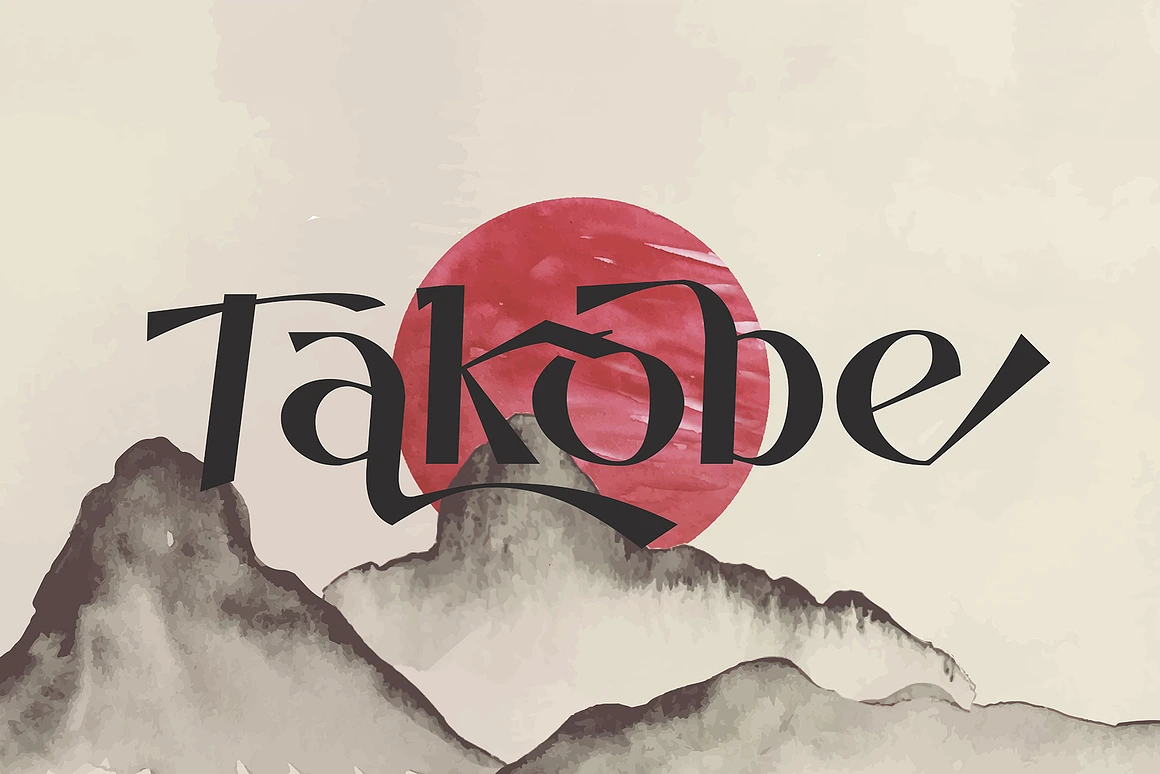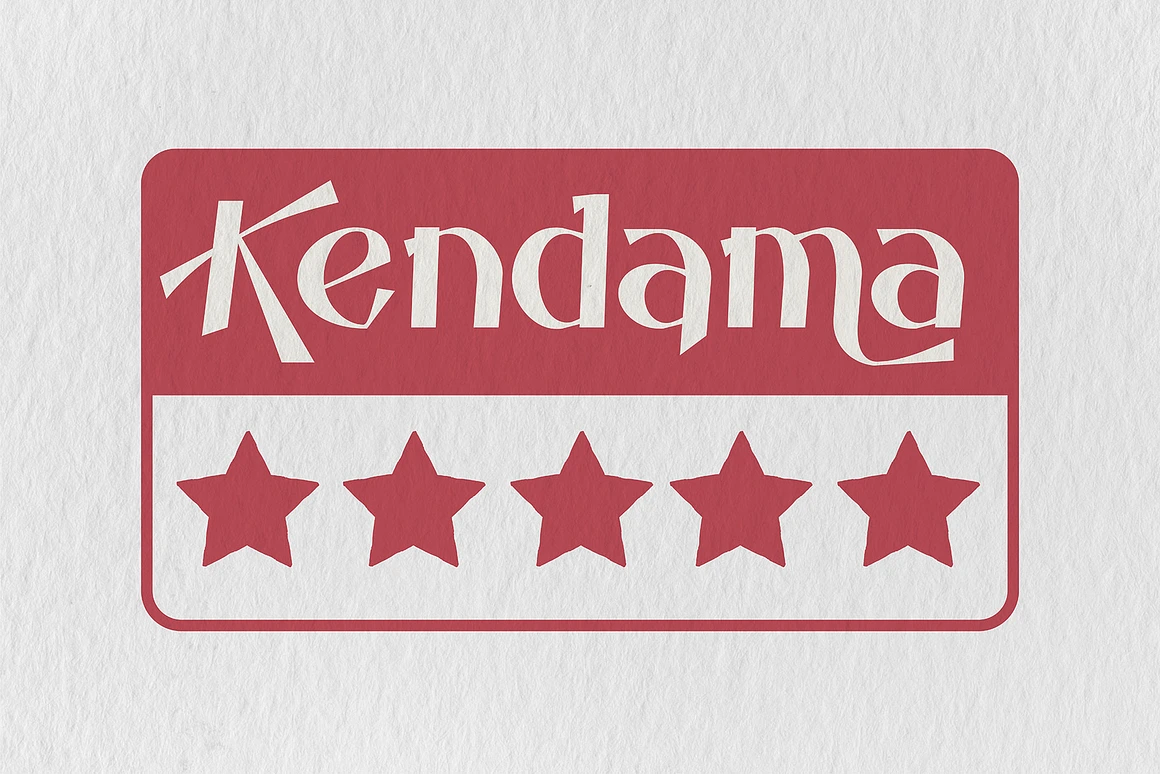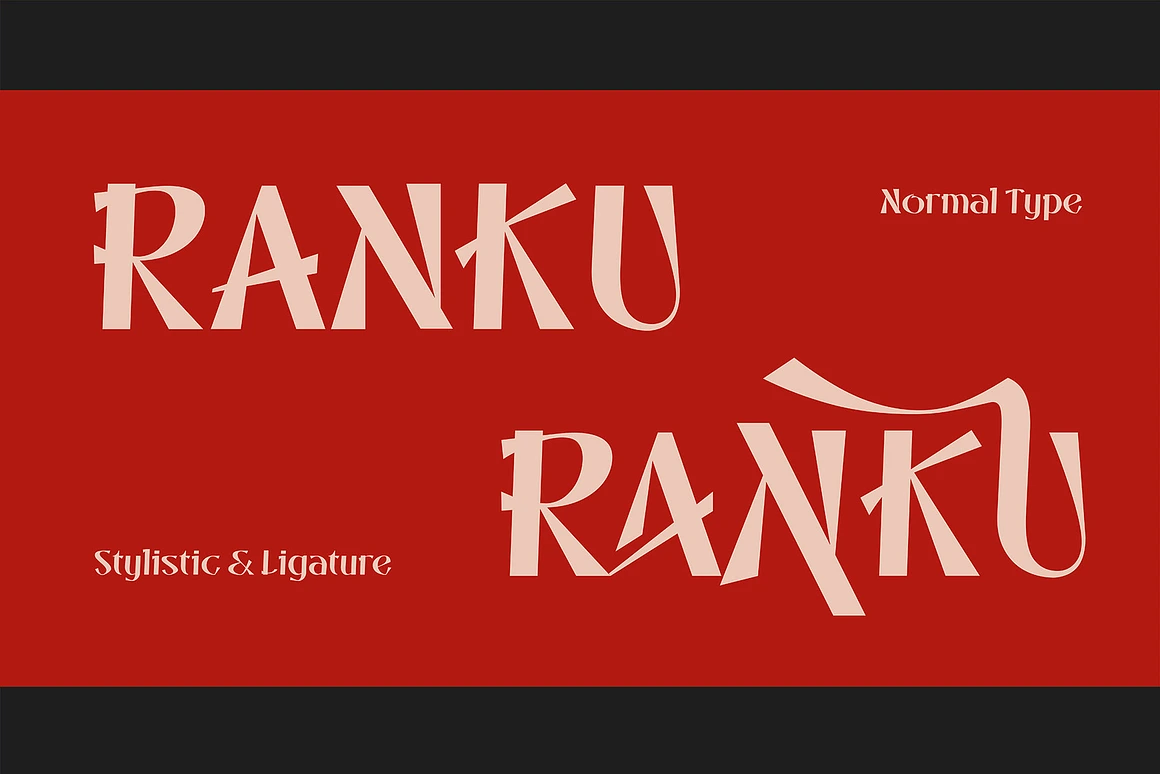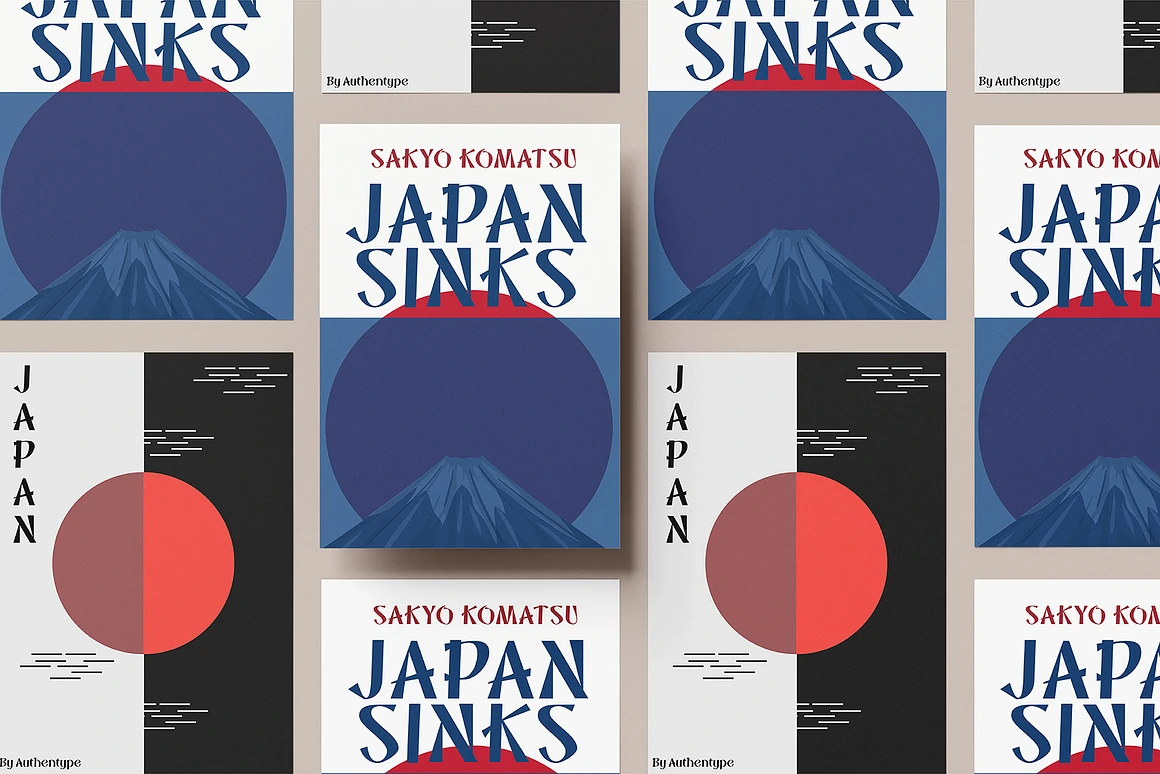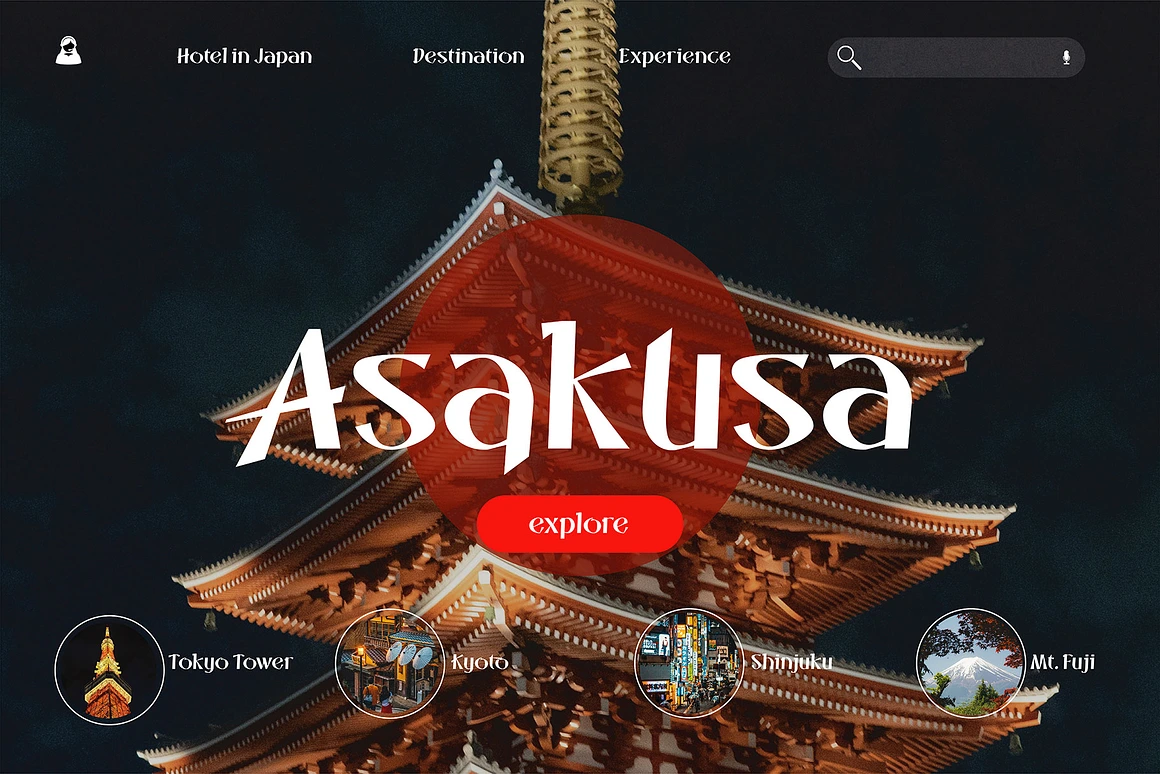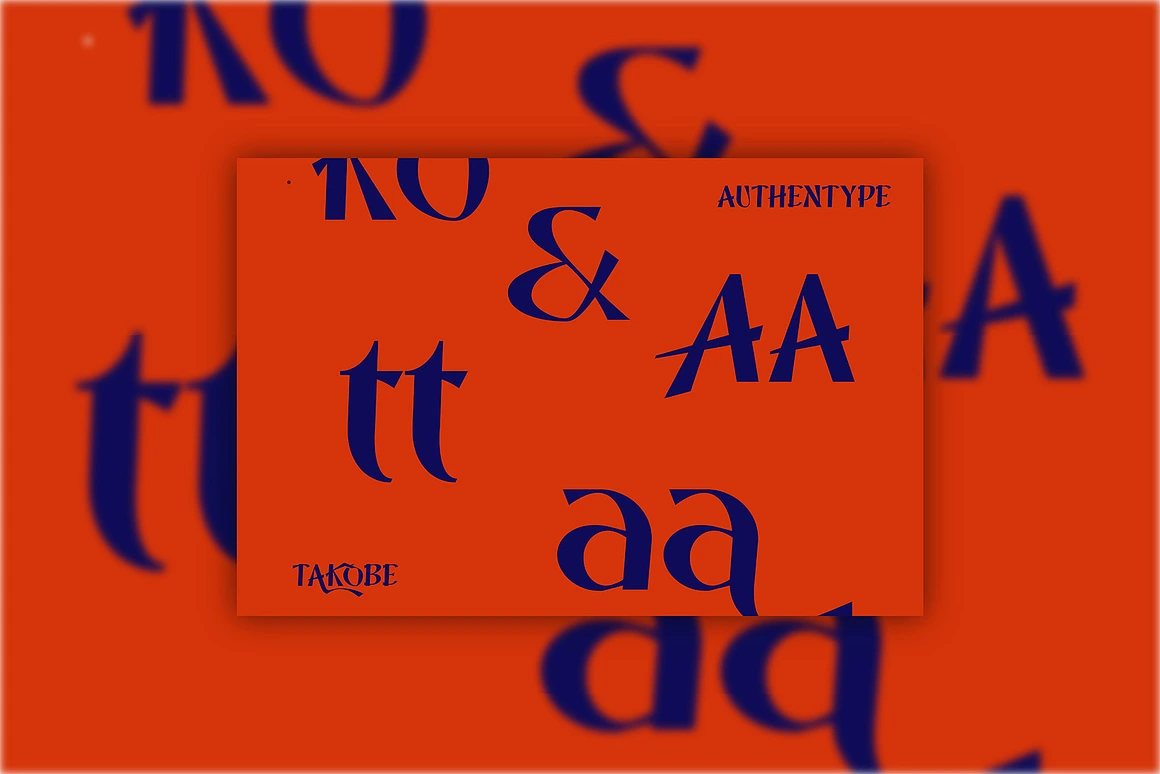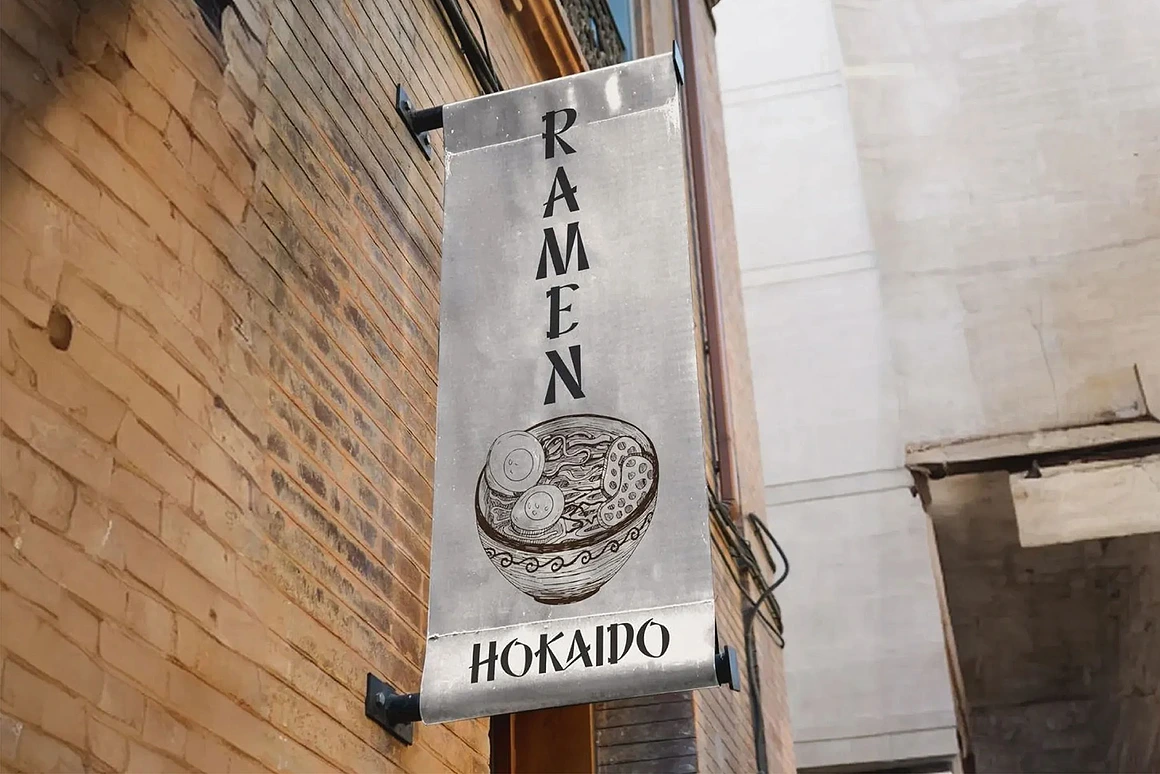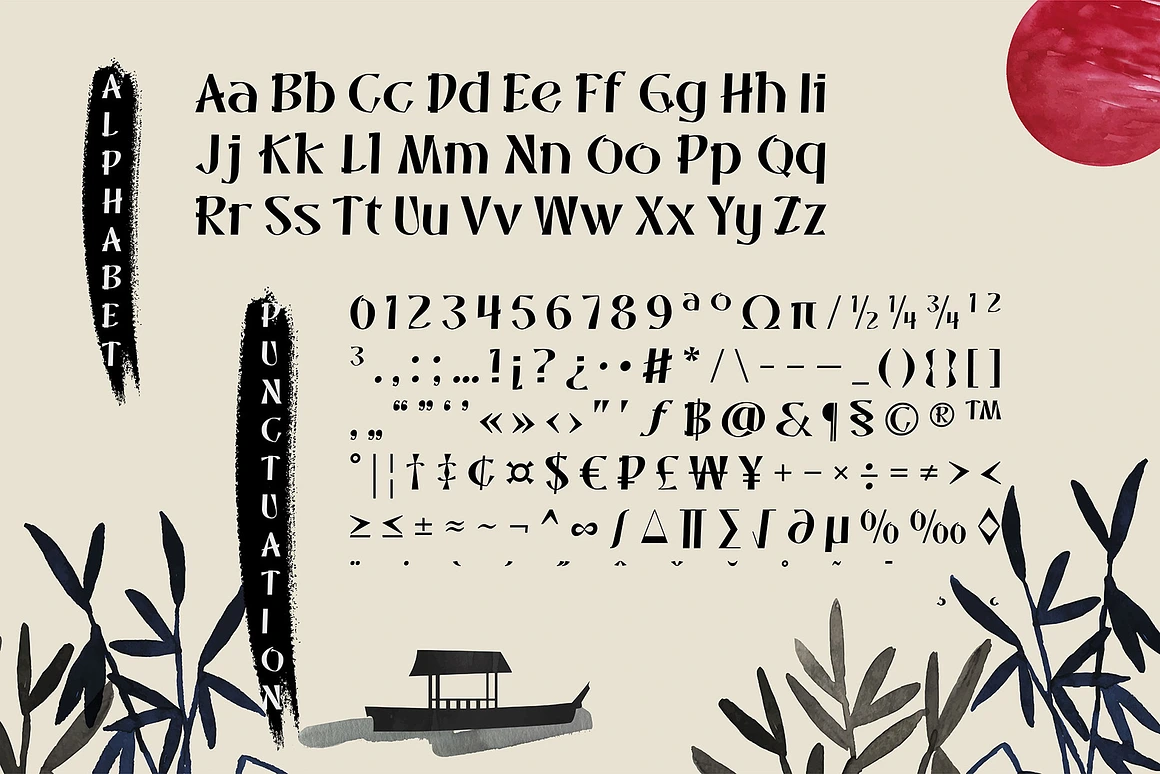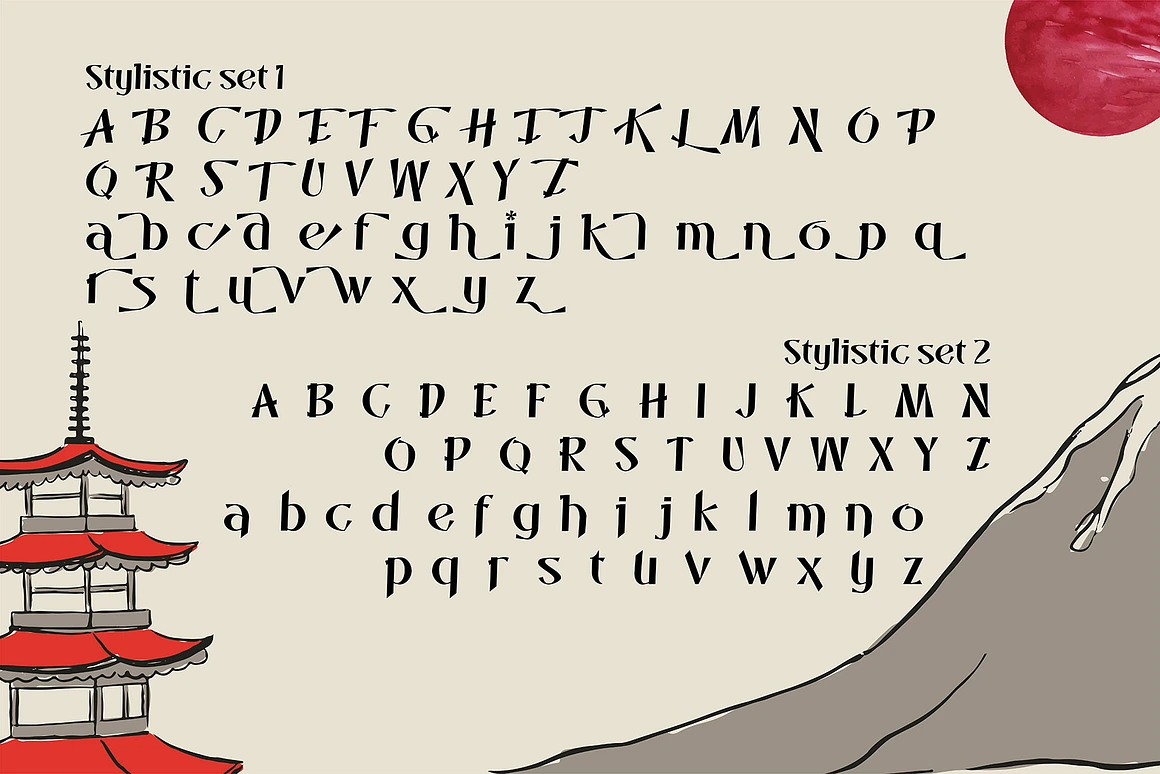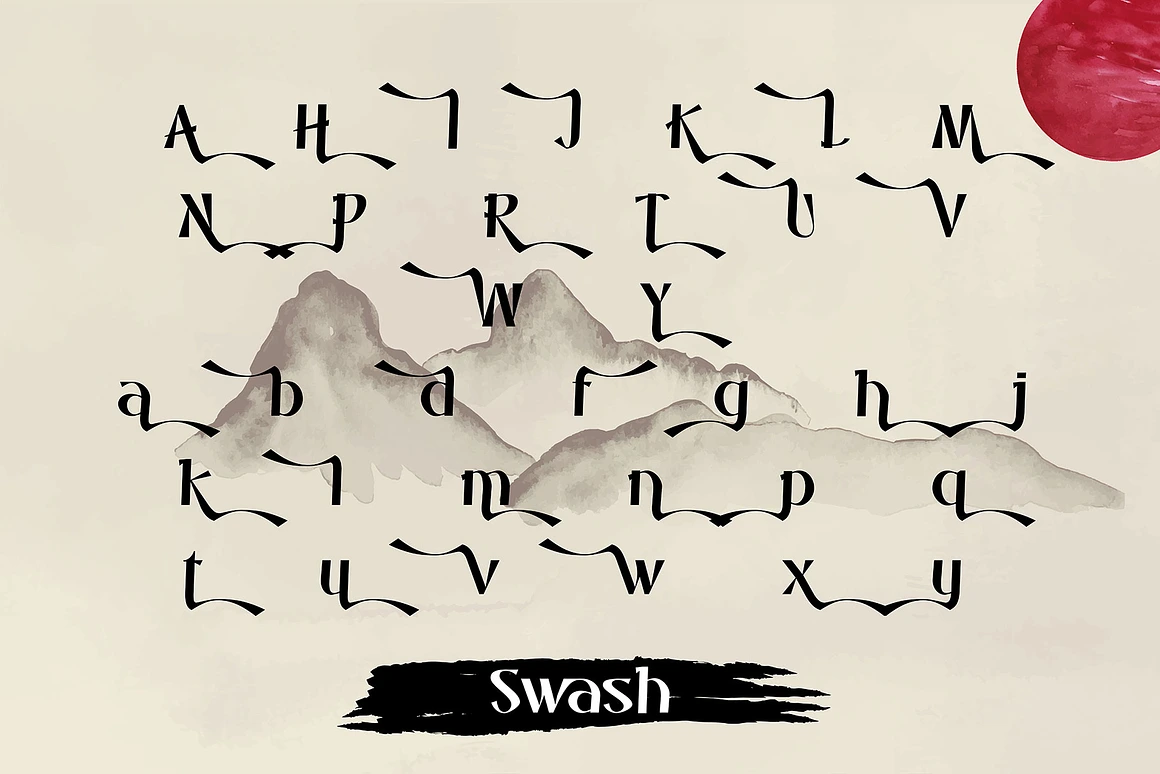
Takobe – Cultures Creative Font
Takobe – Cultures Through Creative Font, presents a bold fusion of Japanese aesthetics and contemporary style, capturing the essence of traditional Japanese characters with a modern twist.
Takobe – Cultures Through Creative Font, presents a bold fusion of Japanese aesthetics and contemporary style, capturing the essence of traditional Japanese characters with a modern twist. This display font features strong, geometric lines and balanced proportions, evoking a sense of harmony and fluidity reminiscent of Japanese calligraphy.
Perfect for posters, branding, packaging, and digital media, Takobe font brings a cultural and artistic touch to any project. With its clean forms and distinctive characters, this font is ideal for designers seeking a unique, Japanese-inspired look that stands out.